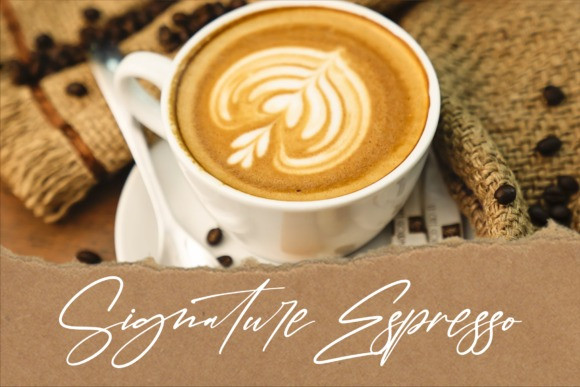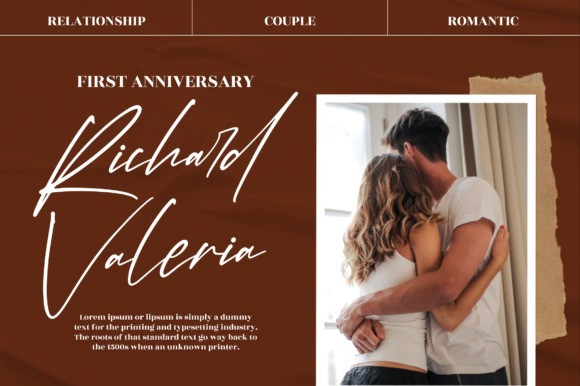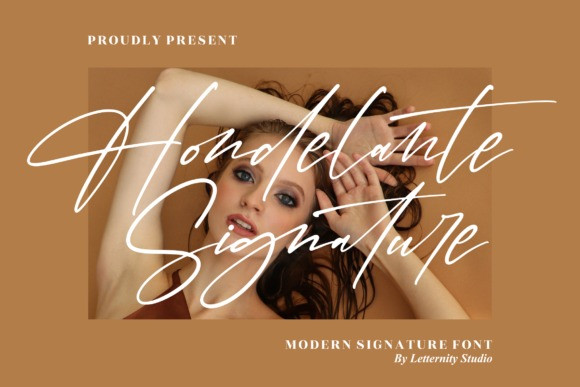
Hondelante Signature Font
Hondelante Signature Font is a thin lettered and graceful script font. Fall for its ravishing style and use it to create gorgeous designs. This font is PUA encoded which means you can access all glyphs and swashes with ease!